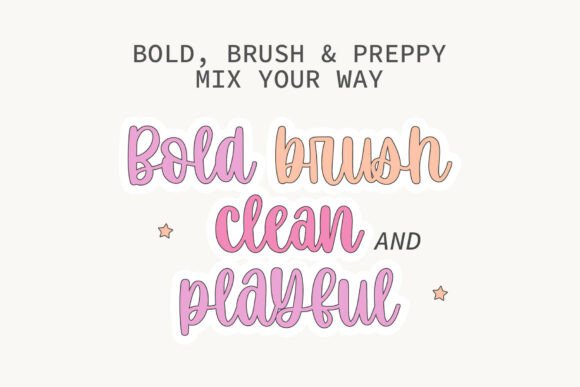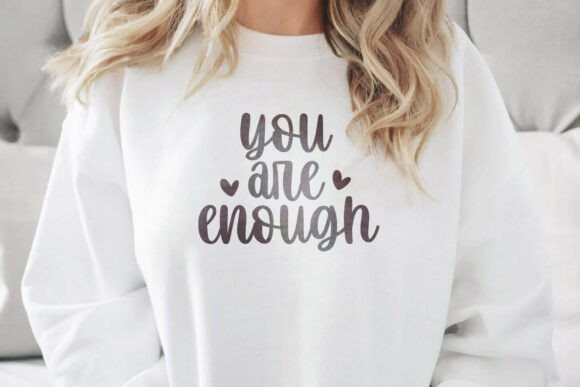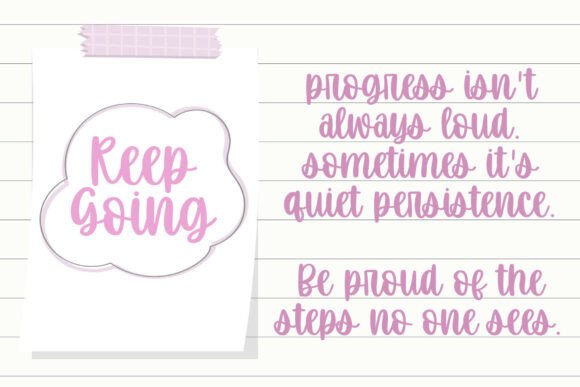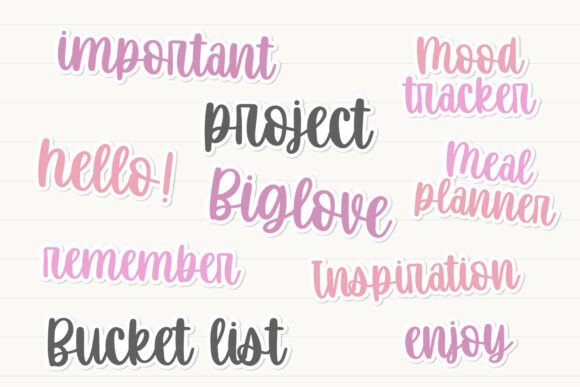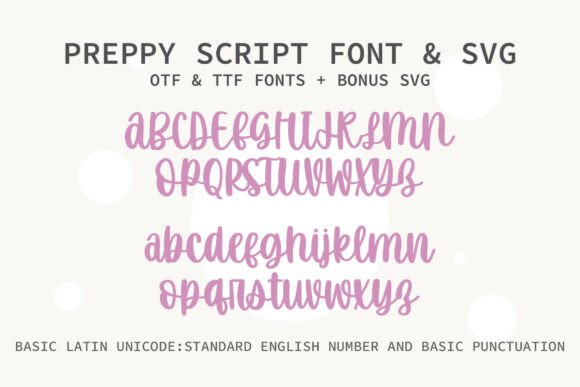
Preppyscript Font
💚 Preppy Script Font is a cute, bold, and playful handwritten script font designed for Cricut, Silhouette, and all your creative projects. This brush-style script features clean lines, smooth curves, and a unique preppy vibe that stands out on shirts, mugs, journals, stickers, and teacher gifts.
💚 Mix and match uppercase and lowercase letters for endless preppy combinations. Perfect for crafting, scrapbooking, classroom décor, and seasonal designs.
💚 Whether you’re a teacher, student, or small business owner, this font helps your designs stand out with charm and clarity.